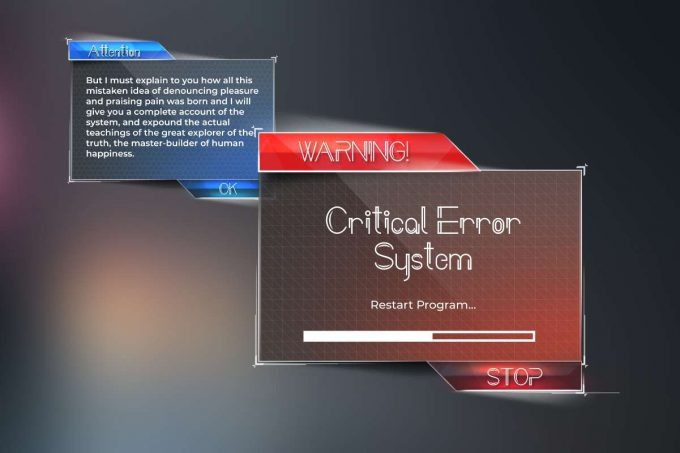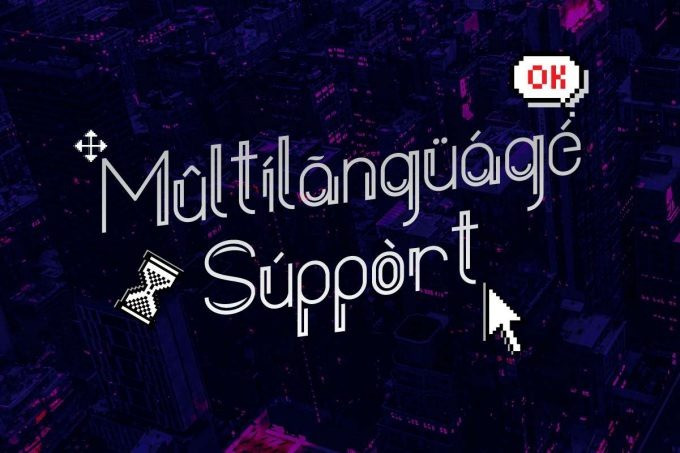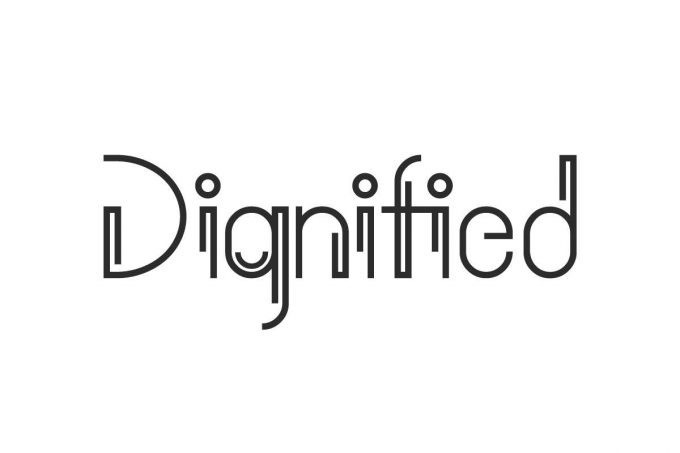
Babelgam Display Typeface
Babelgam font with new and modern styles. A collection of letters and numbers suitable your projects also great for Logotype, Branding Design, Logo Design, Digital Lettering Arts, T-Shirt/Apparel, Poster, Magazine, Signs, Advertising Design, and any design needs.
Designer Name: Staircase_Studio